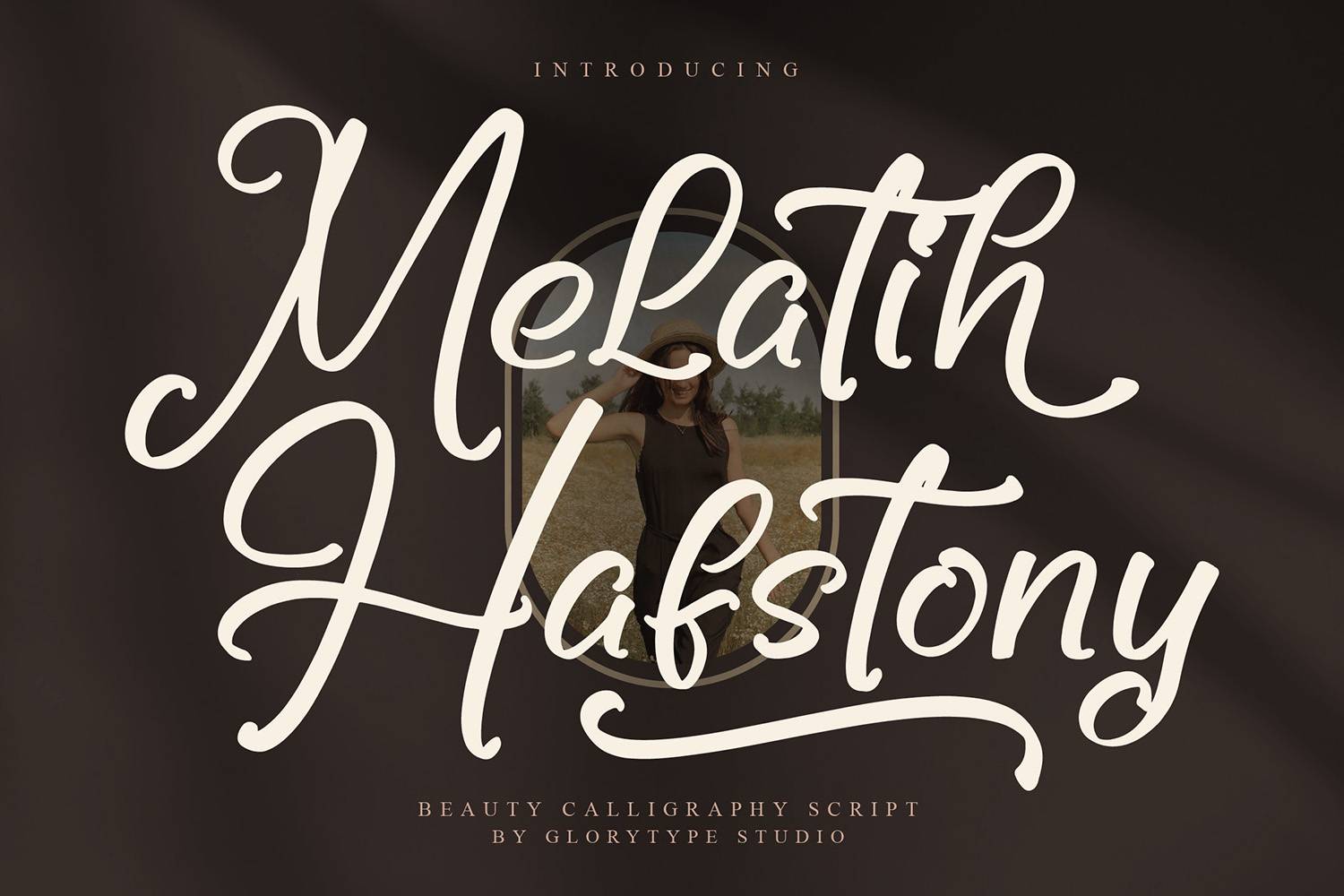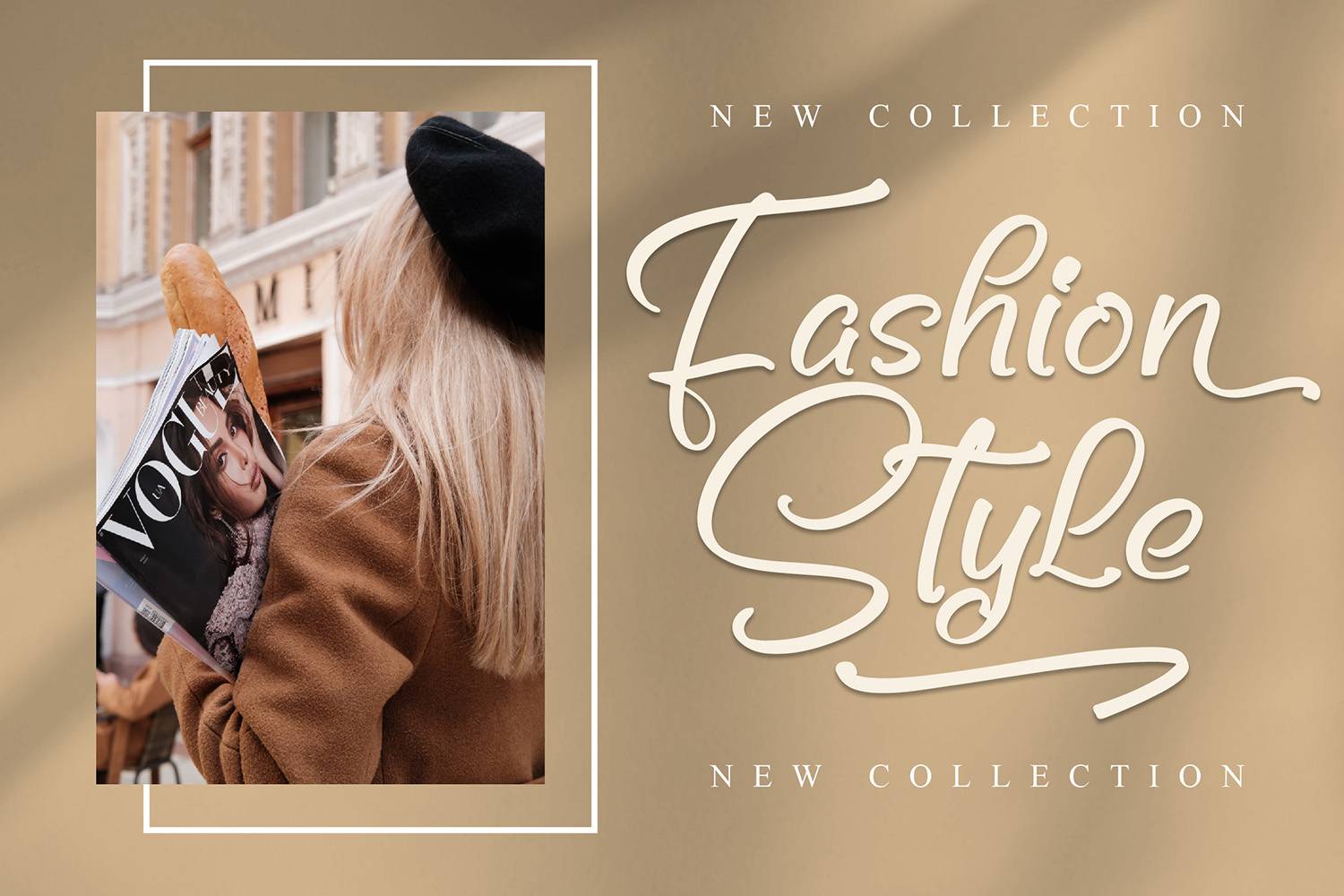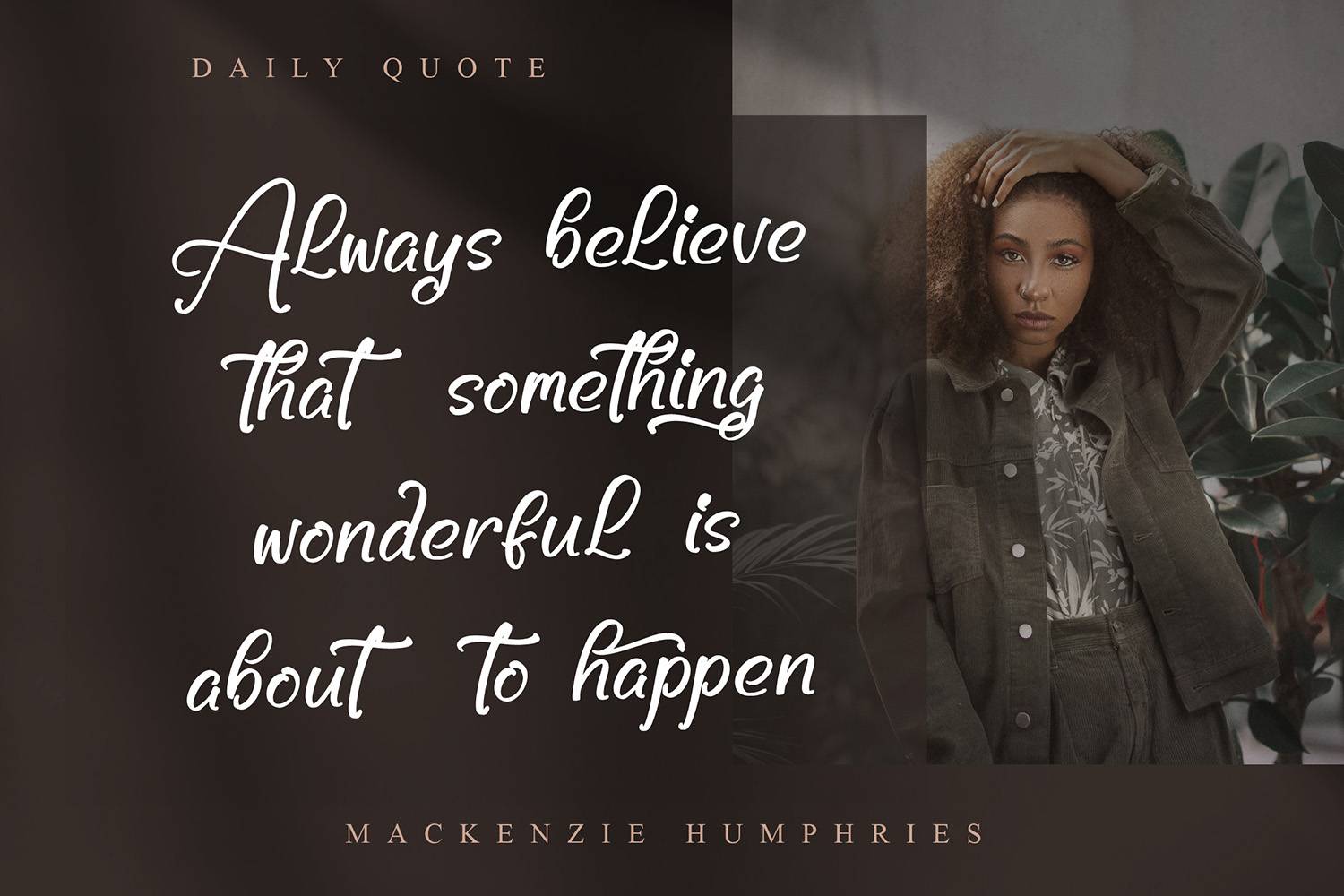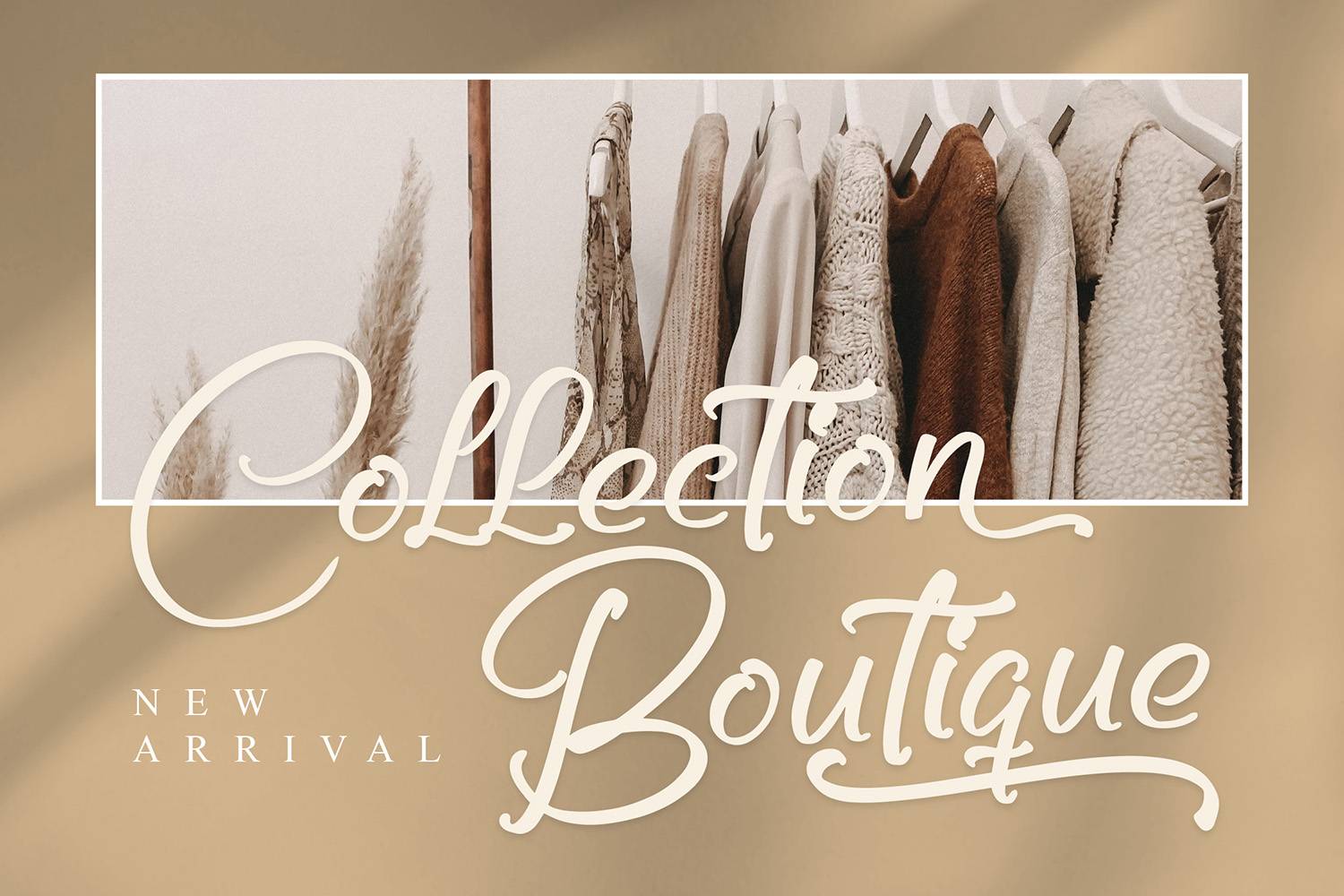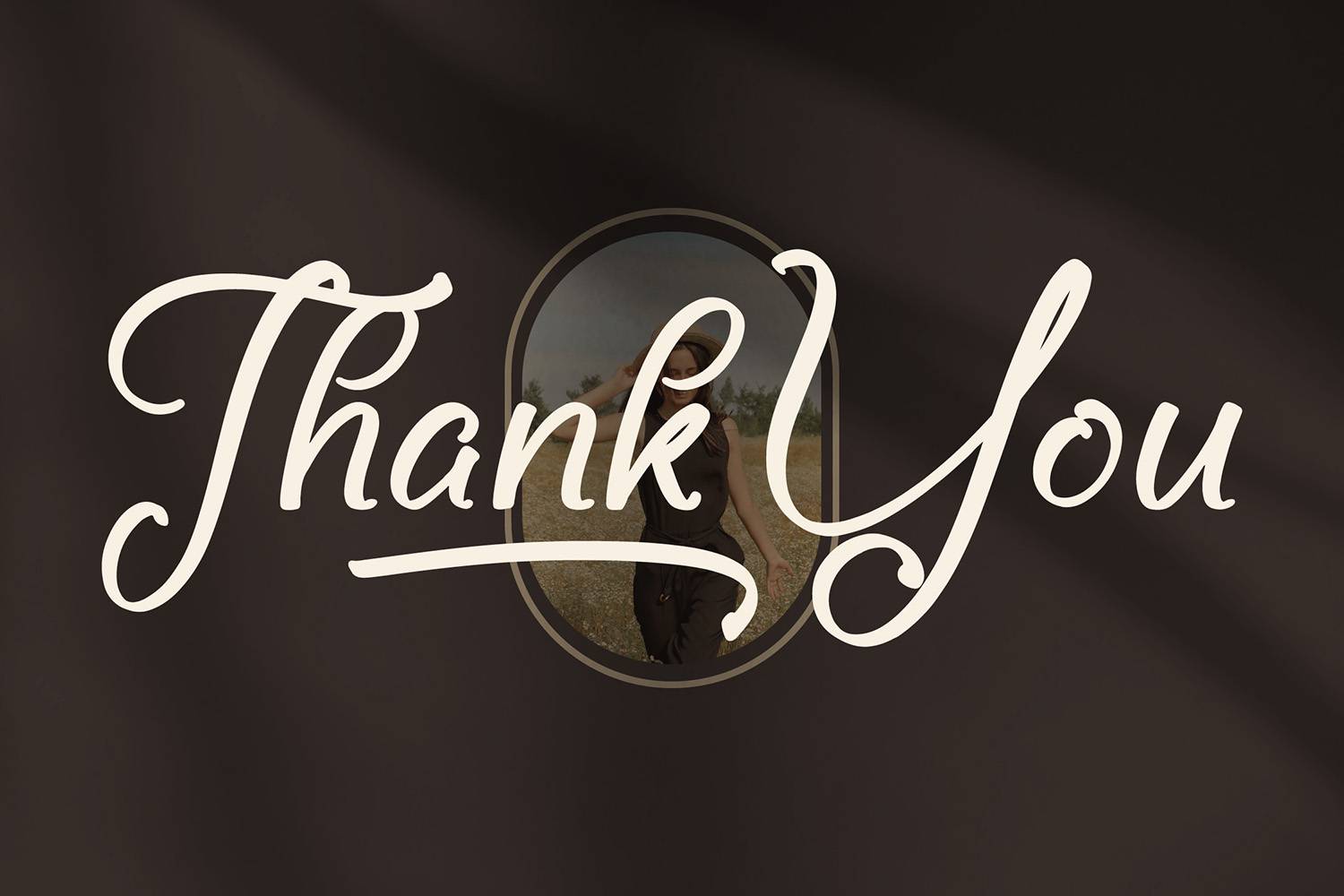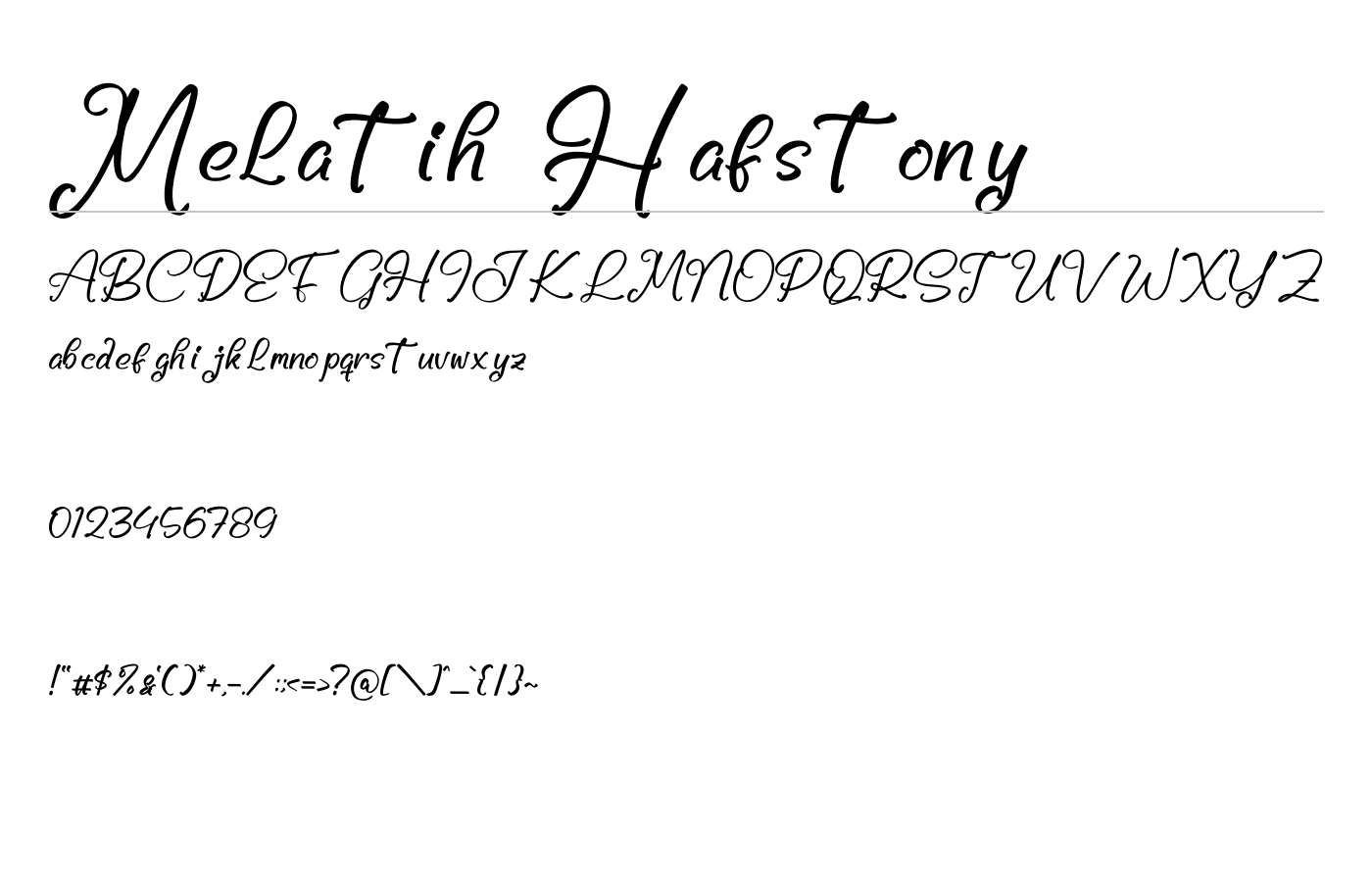
Melatih Hafstony is an elegant script font featuring delicate, flowing strokes with a light weight and a slightly condensed width that lends a refined, graceful appearance. Its charming letterforms have a handwritten feel with distinctive loops and swashes, making it ideal for invitations, branding, and decorative headlines where a personal, sophisticated touch is desired. This font works well in designs that aim to convey elegance, creativity, and a warm, inviting atmosphere.
Melatih Hafstony Font
About Melatih Hafstony Font